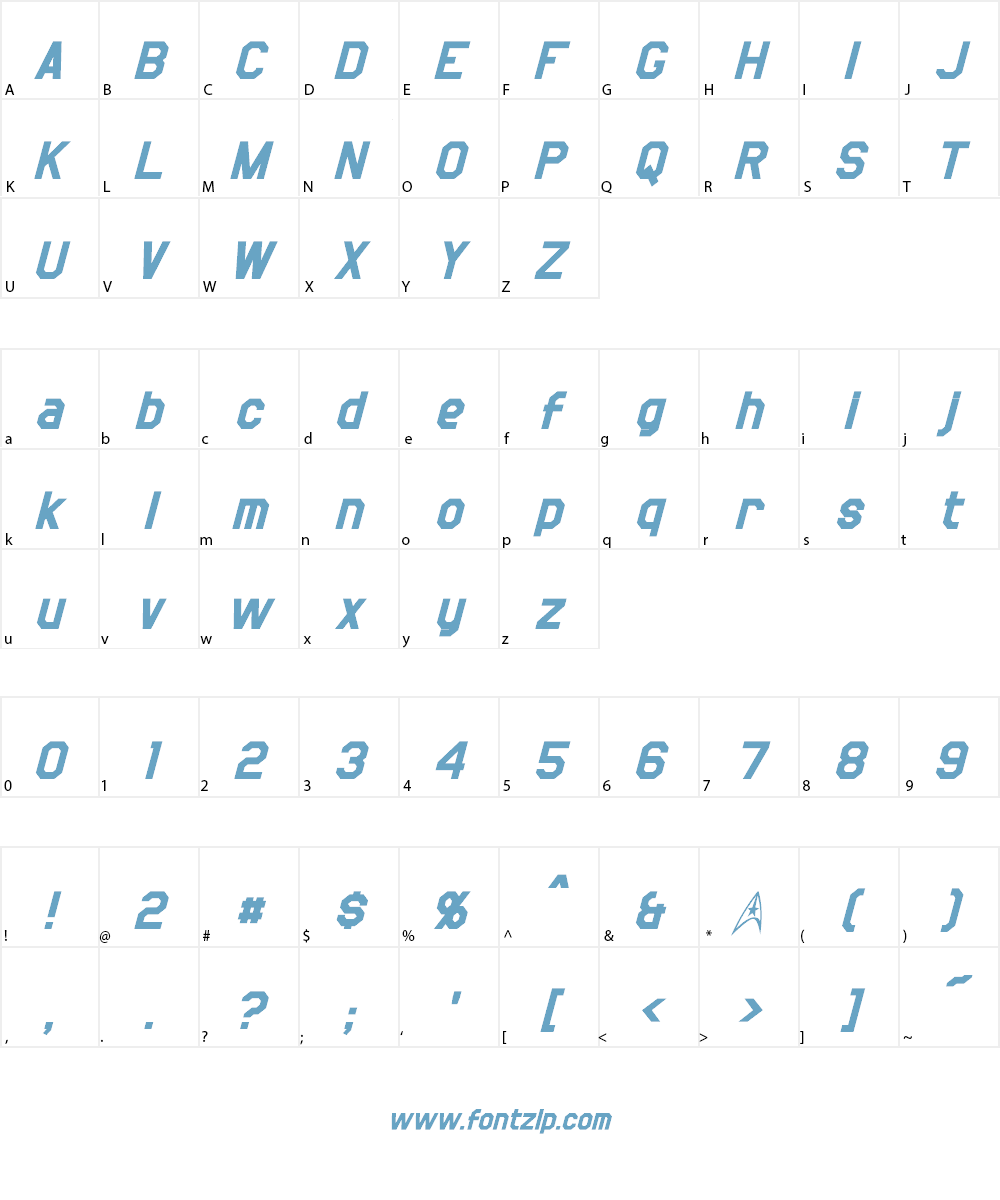
This typeface is based on the lettering of the classic ("Original Series") USS Enterprise, as well as US Naval and Air Force markings. Includes full alphabet, extended punctuation, Euro. Includes bold and italic versions.